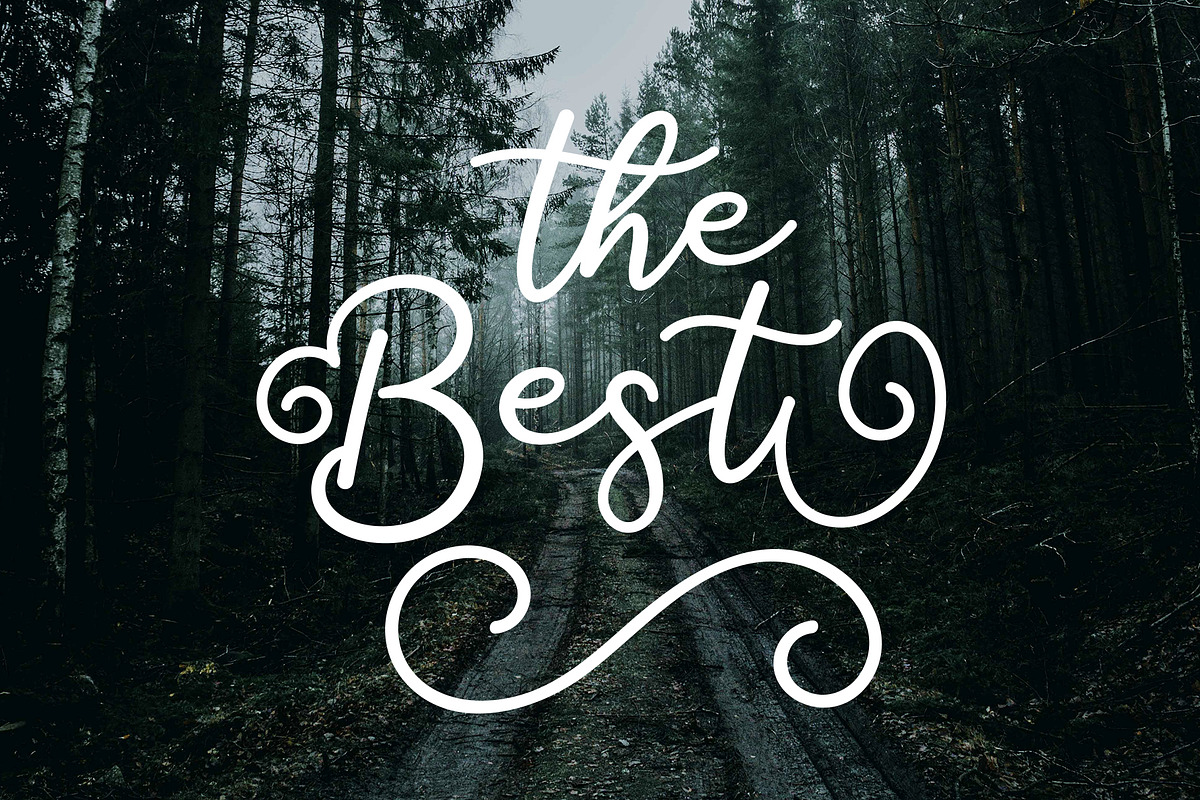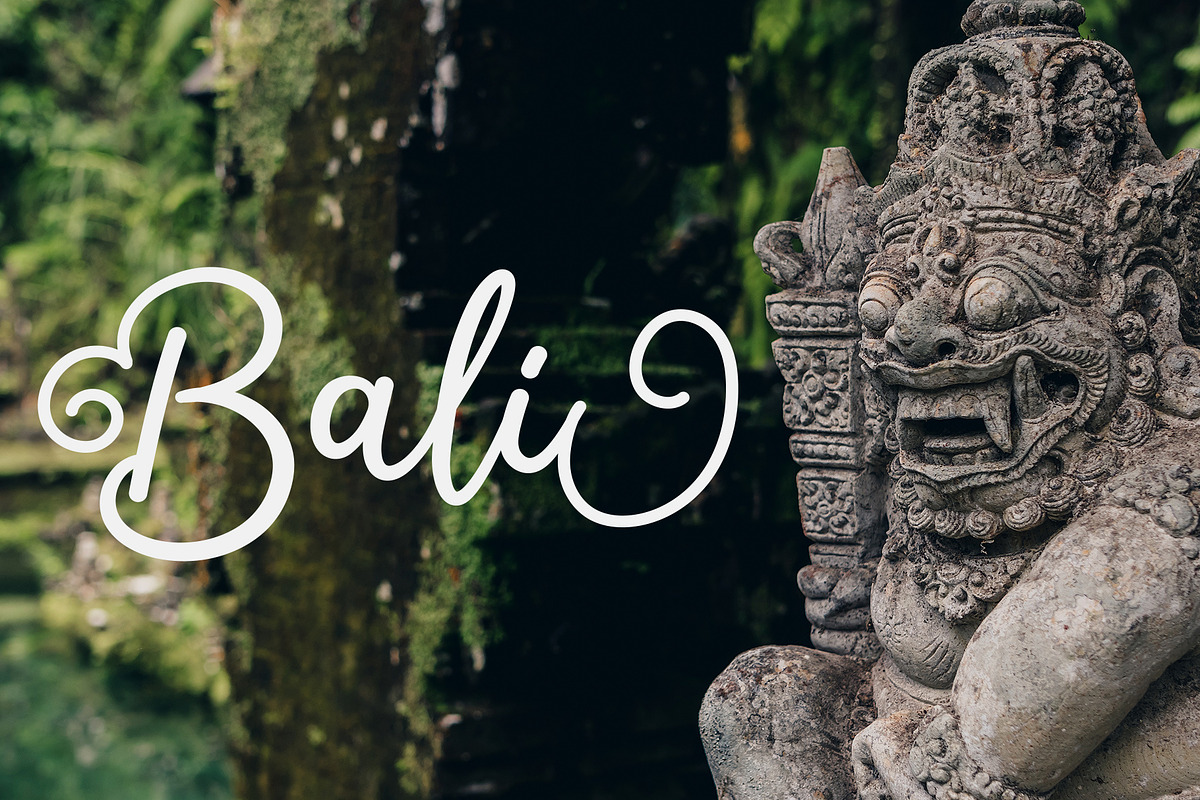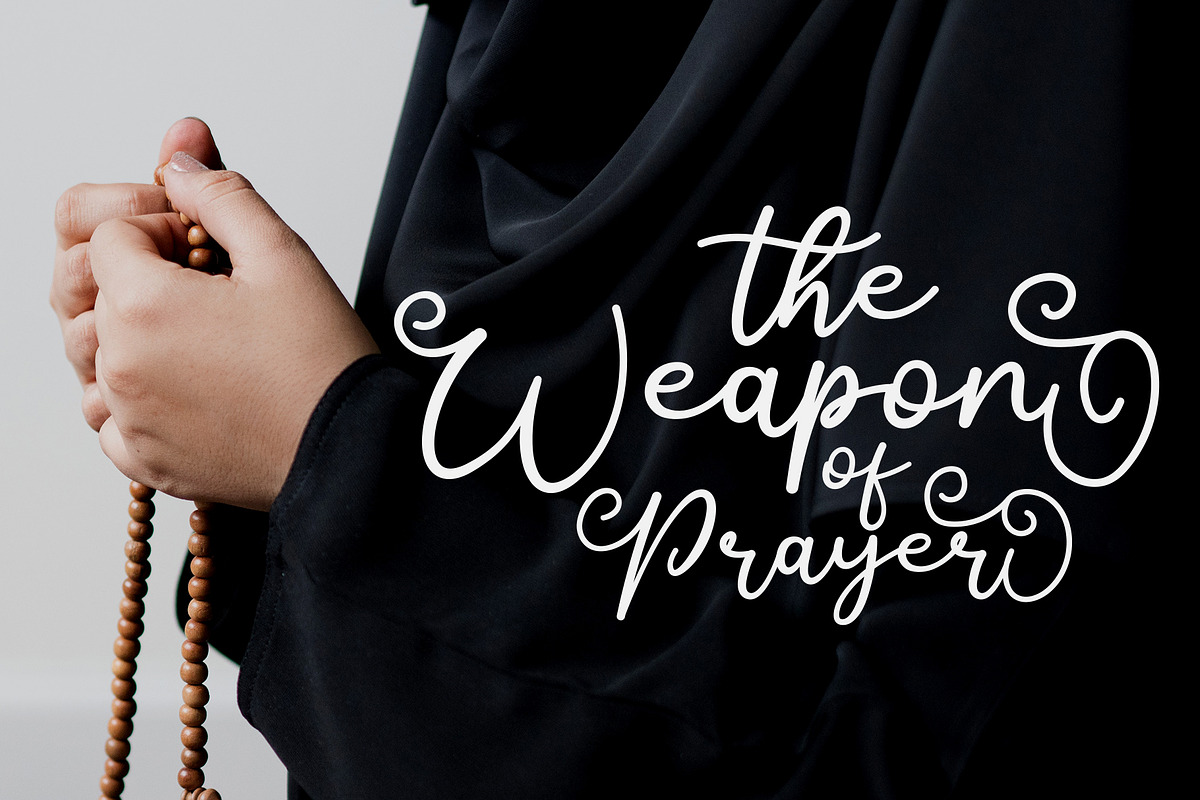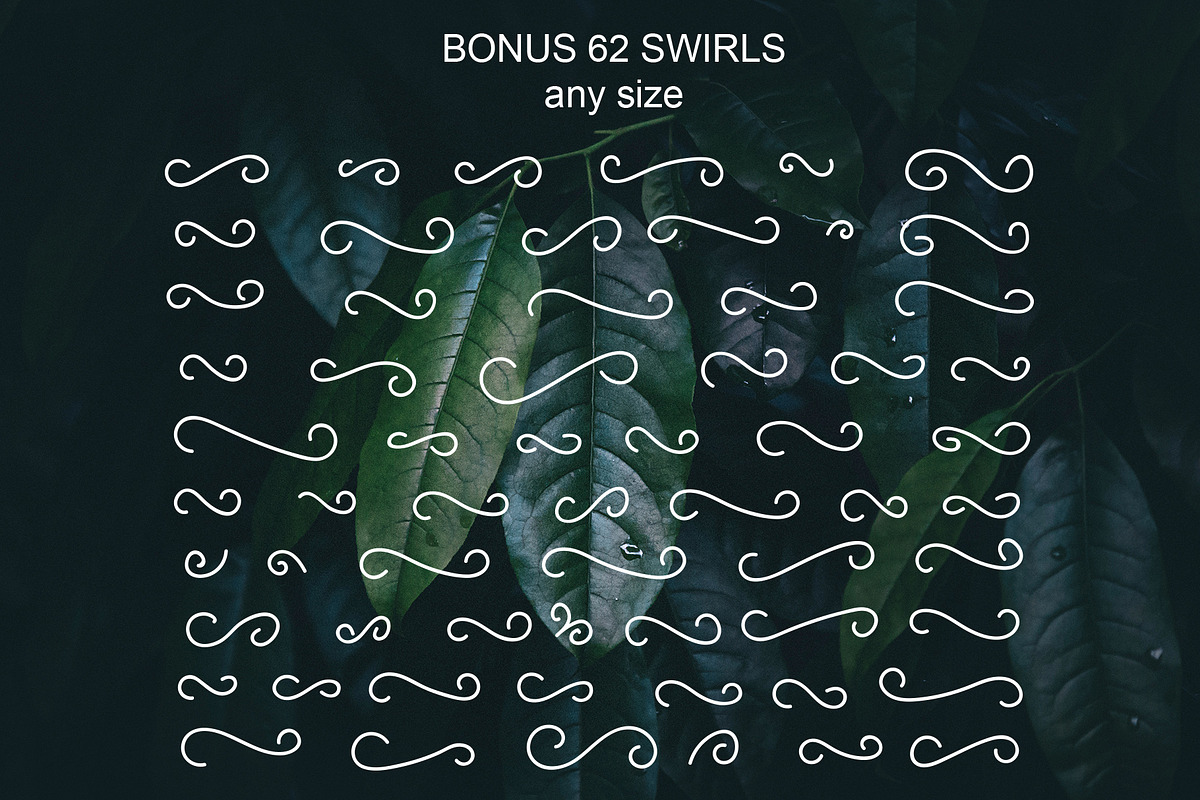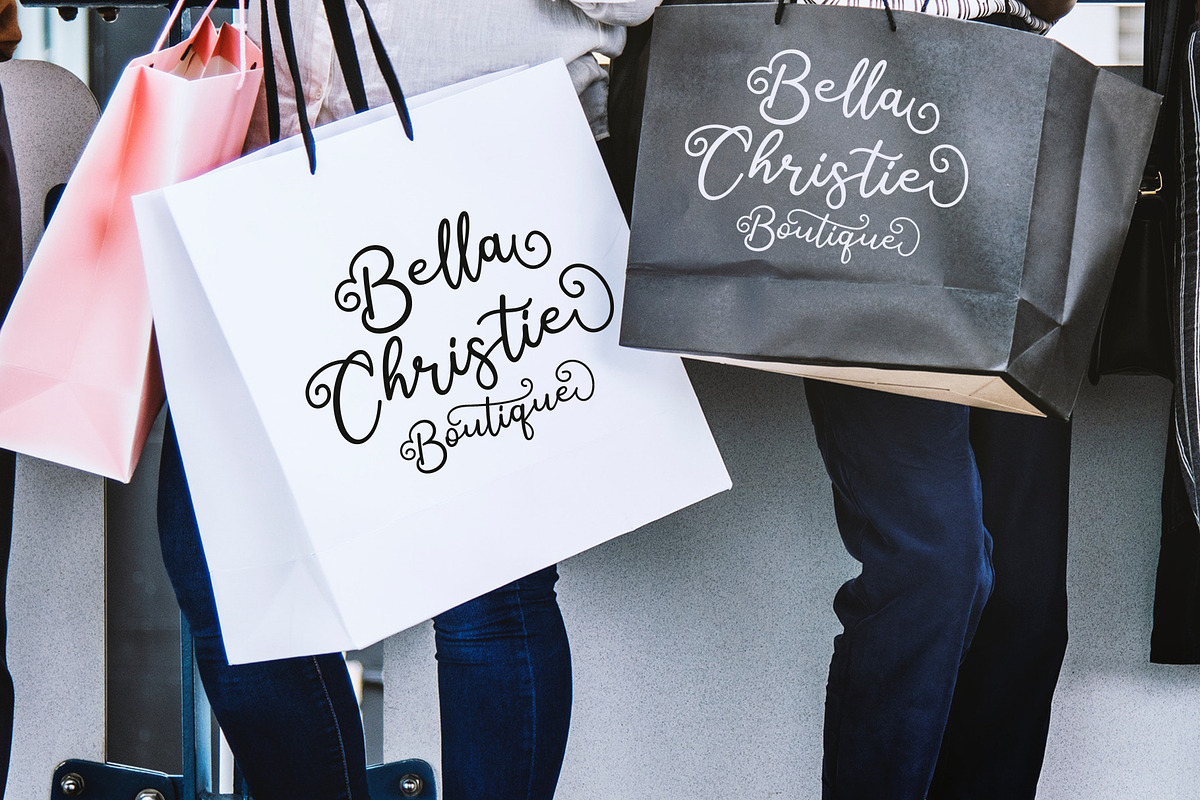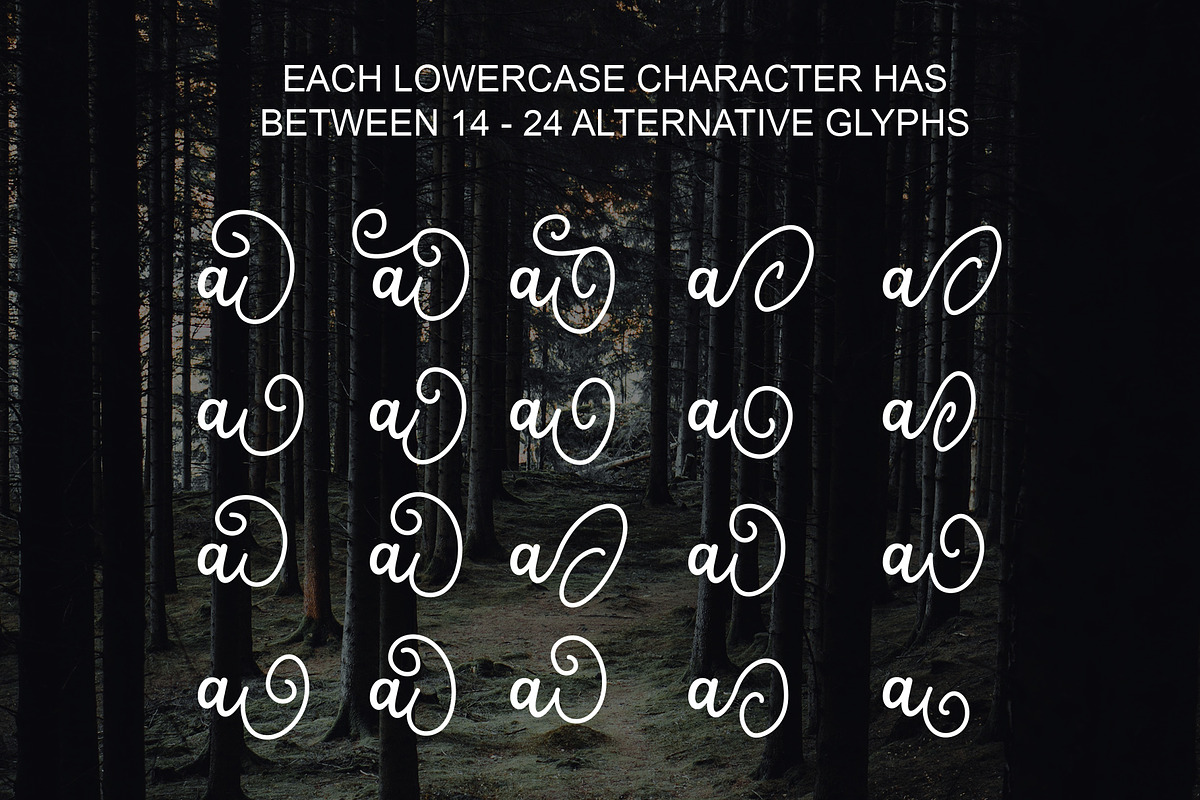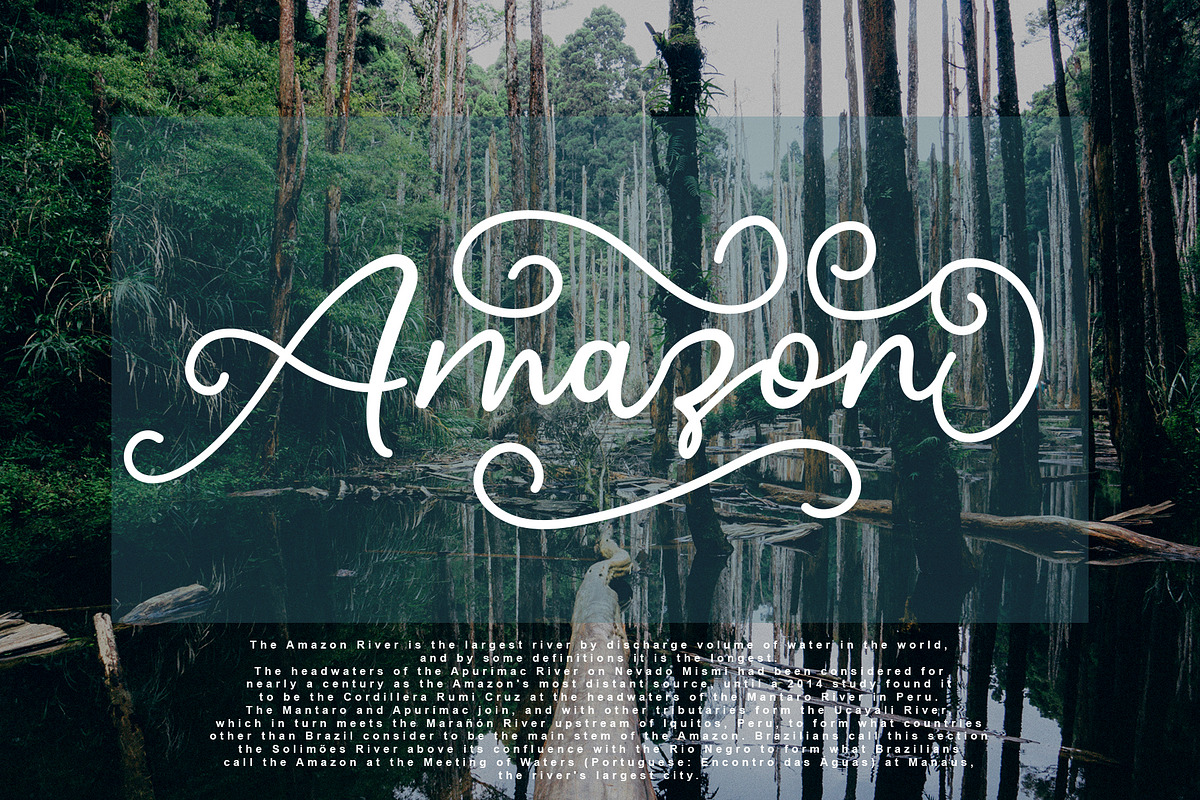
Salahe - a funcy cursive font
Salahe - a funcy cursive font is a handwritten script font with a clear and sweet style, this font is great for your next creative projects such as bouncy lettering set for envelopes, logos, typography, branding and greeting cards, printed quotes, invitations, cards, product packaging, headers, logotypes, letterheads, posters, clothing designs, labels, etc. .
Salahe comes with uppercase letters, lowercase alternative letters, numbers, punctuation, ligature and multi lingual support Plus bonus swirls